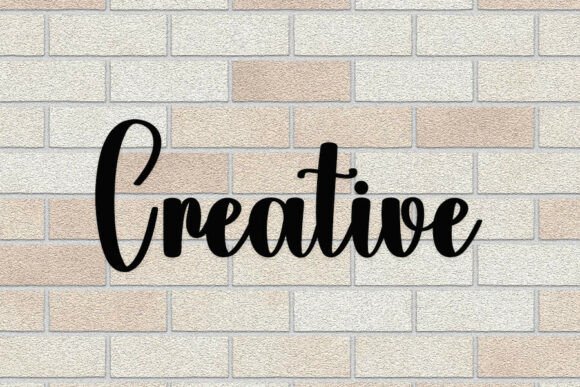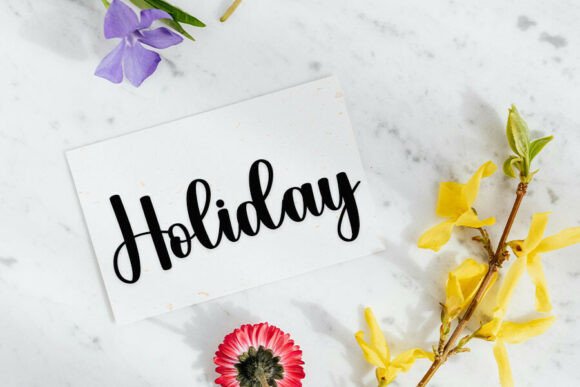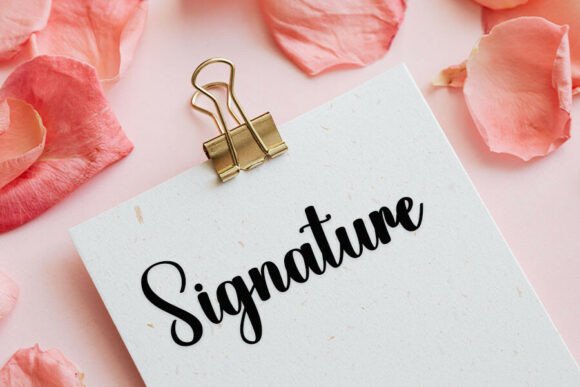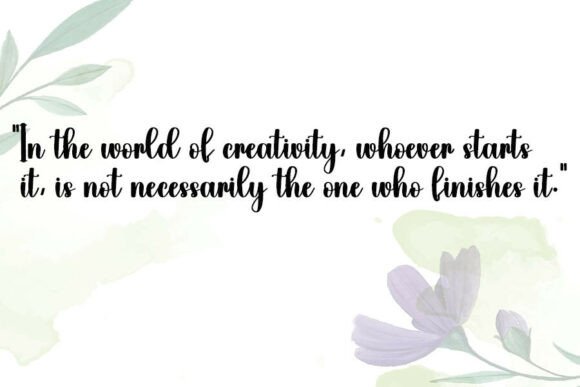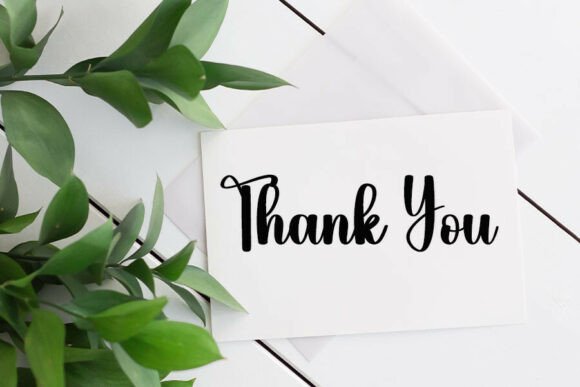
Baby Boy Font: A Delicate Handwritten Font for Unique Designs
In the world of typography, fonts play a crucial role in conveying the tone and personality of a design. For designers and crafters looking for a font that exudes a sense of delicacy and uniqueness, Baby Boy Font is an excellent choice. This carefully crafted handwritten font is perfect for creating cool and eye-catching designs that stand out from the crowd.
What is Baby Boy Font?
Baby Boy Font is a beautiful, delicate handwritten font designed to add a touch of elegance and sophistication to any design project. Its unique and intricate strokes make it perfect for a variety of applications, including writing letters, creating invitations, designing food products, and crafting titles.
Key Features of Baby Boy Font
- Handwritten style: Baby Boy Font boasts a beautiful, handwritten style that adds a personal touch to any design.
- Delicate strokes: The font’s delicate strokes make it perfect for creating elegant and sophisticated designs.
- Unique design: Baby Boy Font’s unique design sets it apart from other fonts, making it ideal for designers and crafters looking for something special.
- Versatile: This font can be used for a wide range of applications, from letters and invitations to food products and titles.
Uses of Baby Boy Font
Baby Boy Font is a versatile font that can be used in various design projects. Here are some of the ways you can use this beautiful font:
- Wedding invitations: Add a touch of elegance to your wedding invitations with Baby Boy Font.
- Party decorations: Use Baby Boy Font to create beautiful party decorations, such as banners and garlands.
- Food product labels: Give your food products a personal touch with Baby Boy Font.
- Stationery: Create beautiful stationery, such as notebooks and journals, with Baby Boy Font.
- Digital designs: Use Baby Boy Font in your digital designs, such as social media graphics and blog posts.
Benefits of Using Baby Boy Font
Using Baby Boy Font in your design projects offers several benefits, including:
- Unique designs: Baby Boy Font helps you create unique and eye-catching designs that stand out from the crowd.
- Elegant look: The font’s delicate strokes and handwritten style give your designs an elegant and sophisticated look.
- Versatility: Baby Boy Font can be used in various design projects, making it a great addition to your font collection.
- Easy to read: Despite its delicate strokes, Baby Boy Font is easy to read, making it perfect for body text and headings.
Tips for Using Baby Boy Font
Here are some tips for using Baby Boy Font in your design projects:
- Pair with other fonts: Pair Baby Boy Font with other fonts to create a unique and interesting design.
- Use for headings and titles: Use Baby Boy Font for headings and titles to add a touch of elegance to your designs.
- Keep it simple: Don’t overcomplicate your design. Keep it simple and elegant to make the most of Baby Boy Font.
Baby Boy Font is a beautiful, delicate handwritten font that is perfect for designers and crafters looking for a unique and elegant font. Its versatility and ease of use make it a great addition to any font collection. With its delicate strokes and handwritten style, Baby Boy Font is sure to add a touch of sophistication to any design project.
Whether you’re designing wedding invitations, party decorations, or food product labels, Baby Boy Font is an excellent choice. So why not give it a try and see how it can elevate your designs to the next level?